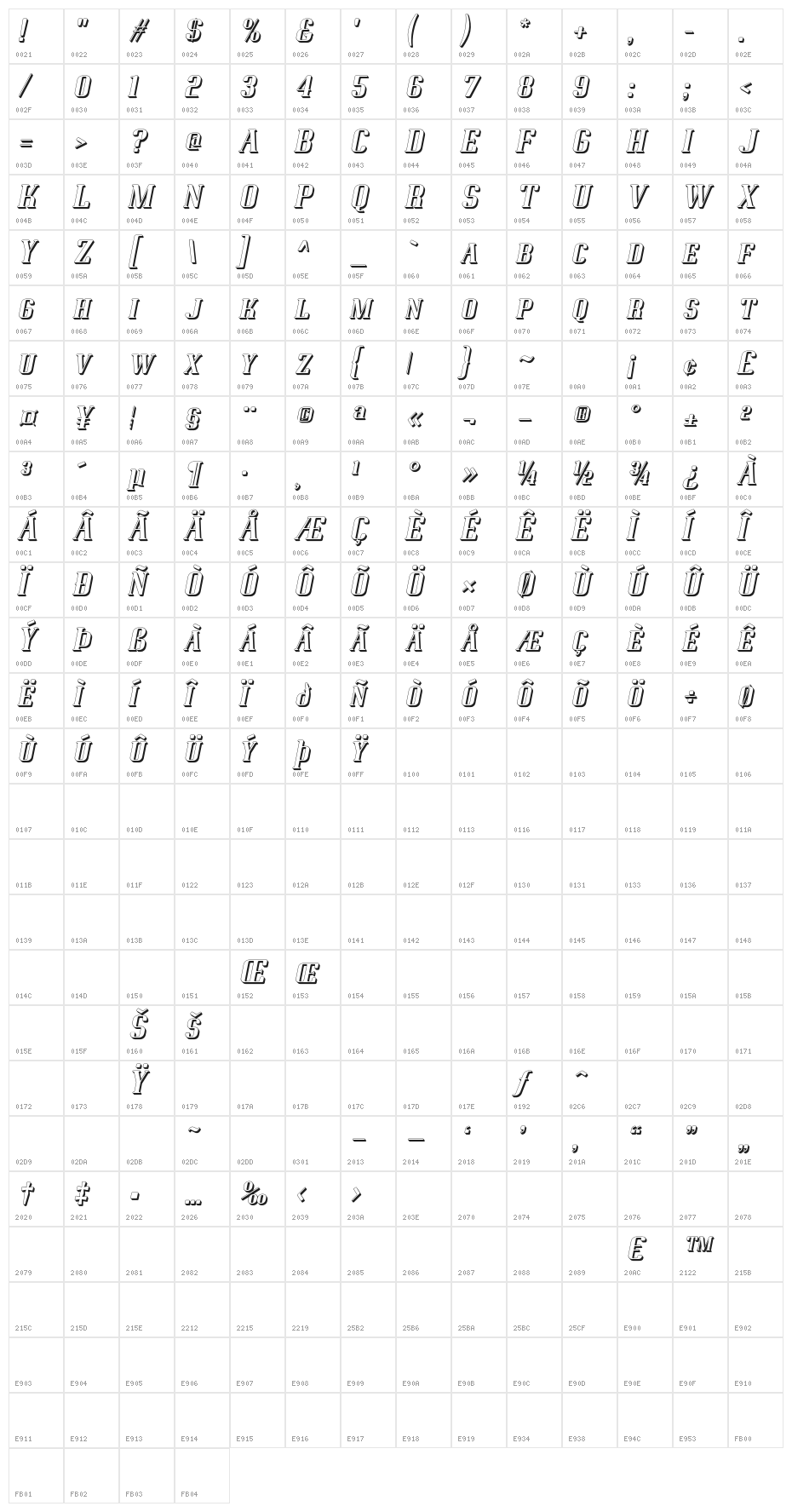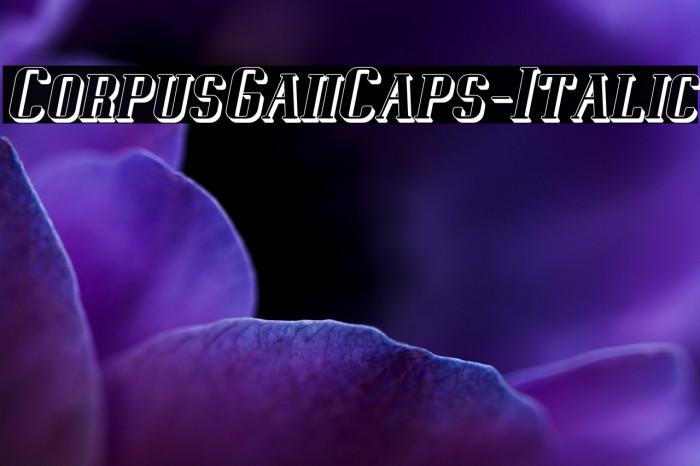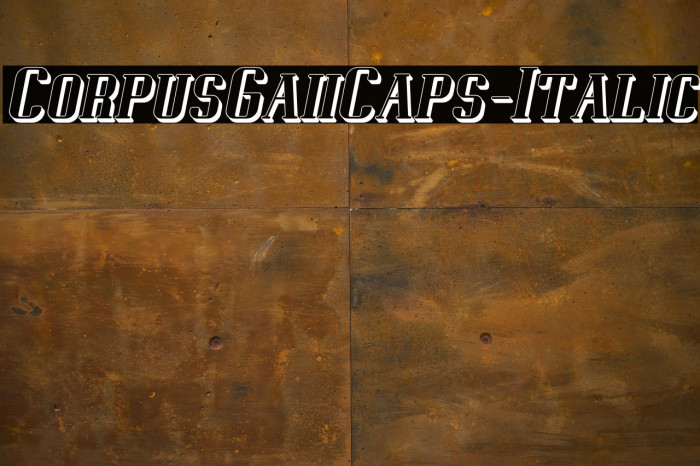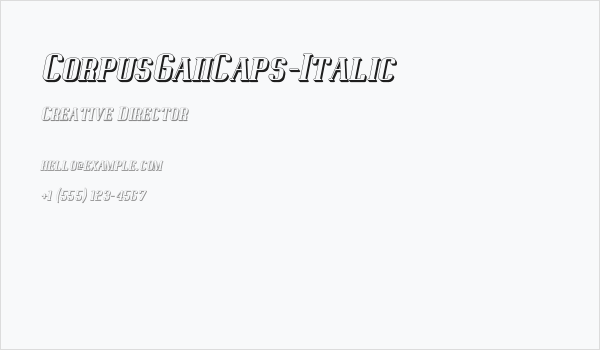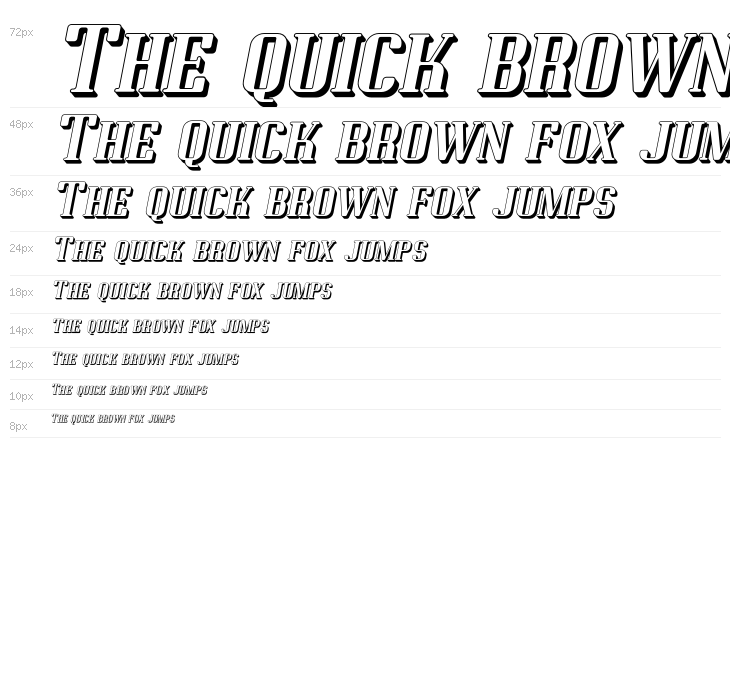
CorpusGaiiCaps-Italic Font
CorpusGaiiCaps-Italic Description
This font features a bold, italicized style with a distinct shadow effect that gives it a three-dimensional appearance. The characters are uppercase and have a strong, impactful presence, making them ideal for attention-grabbing designs. The strokes are thick and consistent, contributing to a high contrast between the characters and their background. The italic slant adds a dynamic and forward-moving feel, while the shadow effect enhances depth and visual interest. The overall design is modern and stylish, suitable for projects that require a bold statement.
| Proposed Projects | Ideal for headlines, posters, logos, and branding materials that require a strong visual impact. |